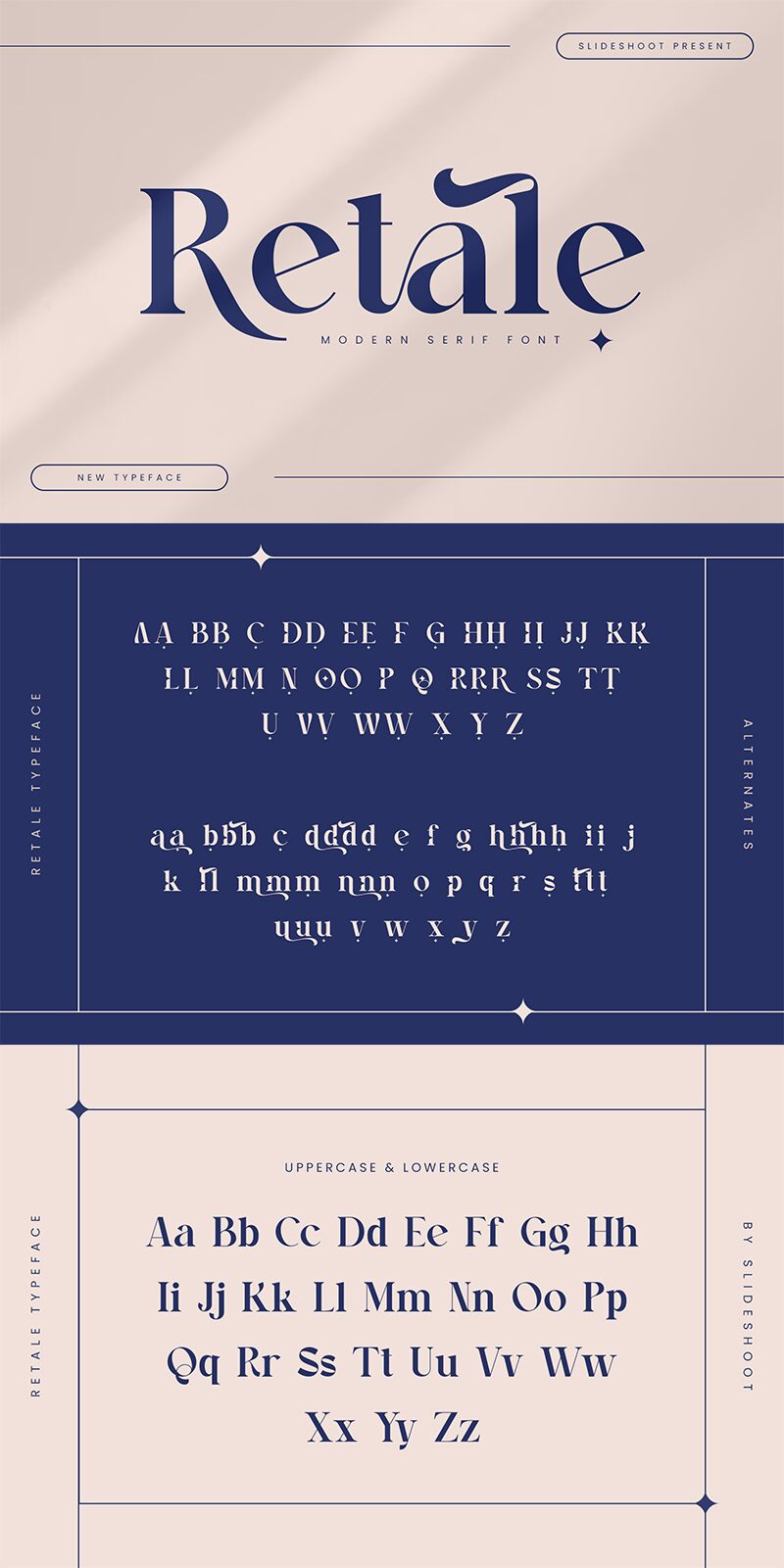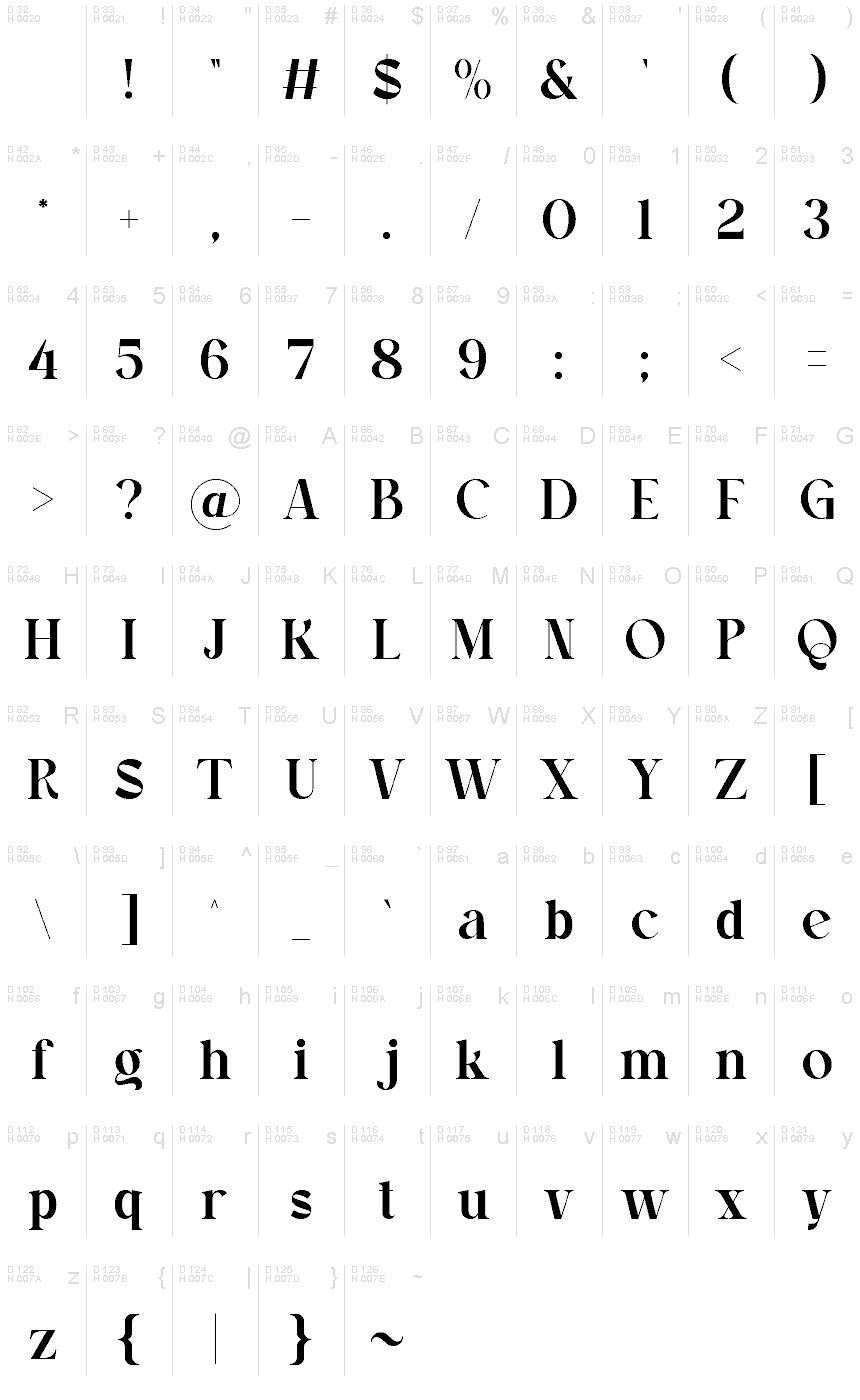
Retale
Retale font by Ahmad Riqi is a serif font that embodies elegance, sophistication, and a classic look with a modern touch. Its professional appearance and timeless appeal make it suitable for various design contexts where aesthetic quality is of utmost importance.
A free serif font, Retale can be used in branding, advertising posters, logos, website headers or footers, mobile applications, digital advertising banners, magazines (printed and online), book covers or greeting cards.